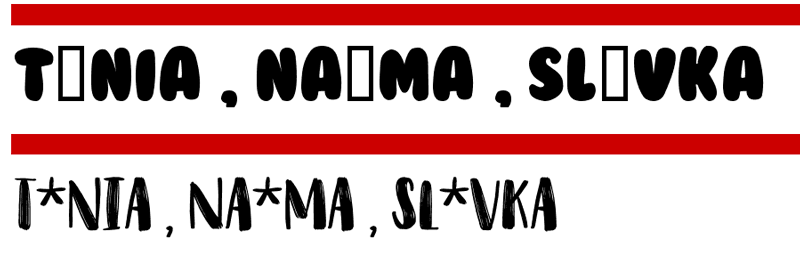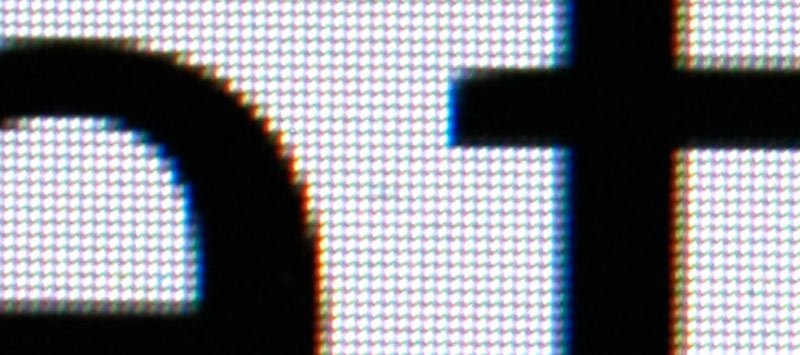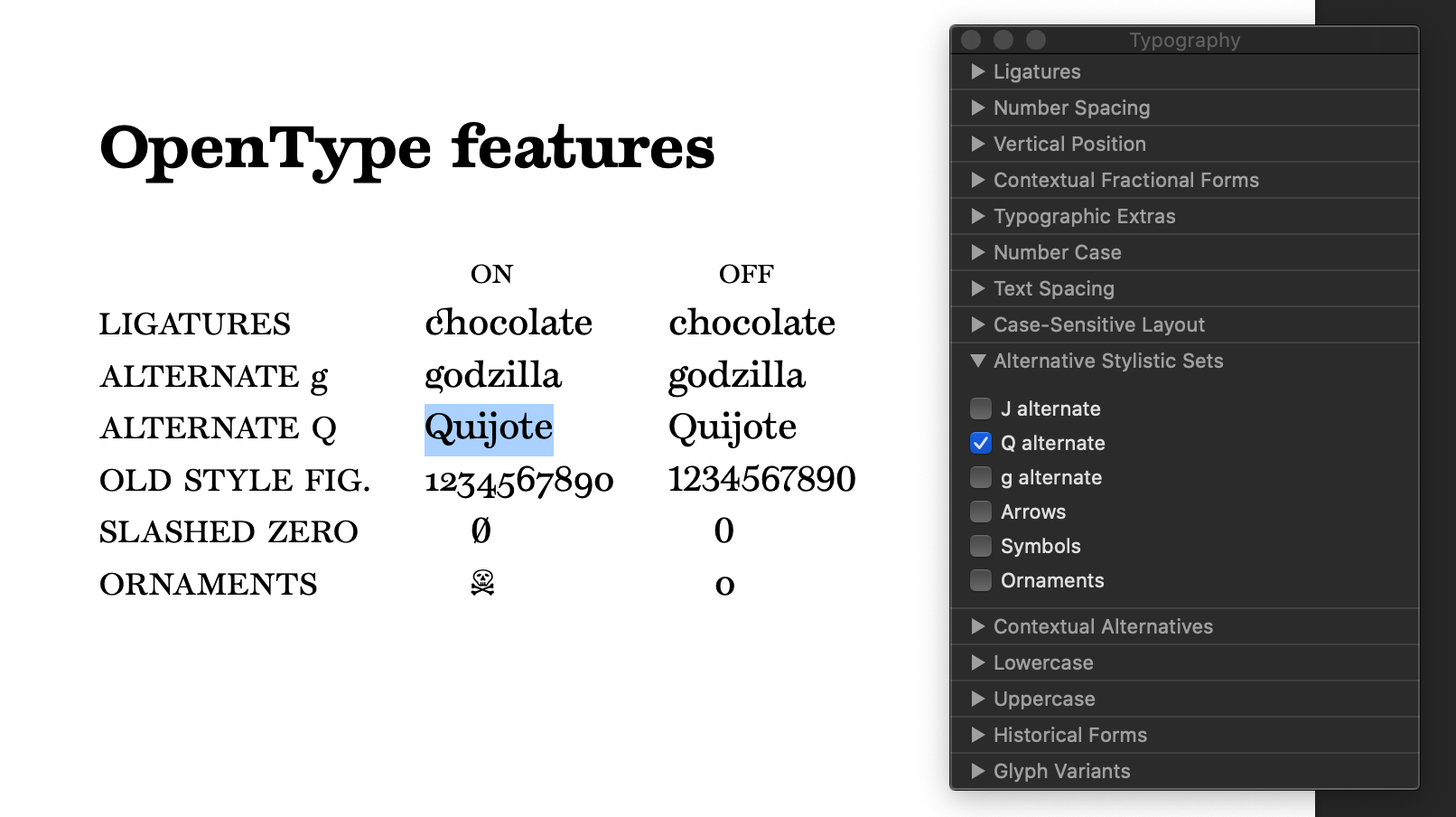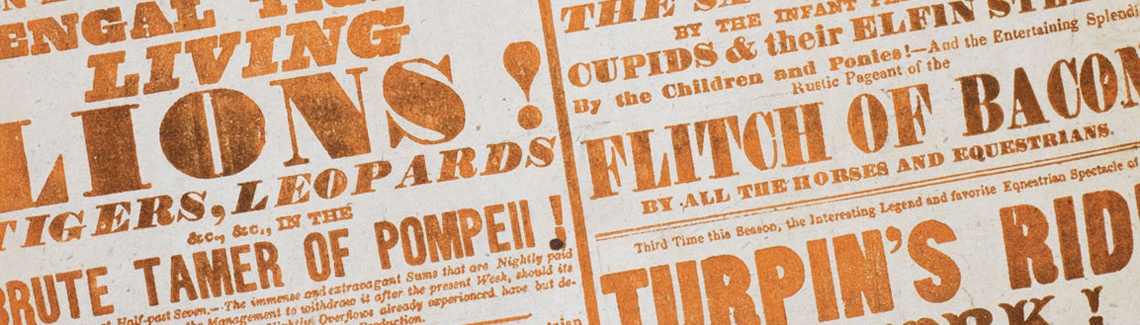
How to choose the right typeface
Typeface selection is an art and a science because it involves creativity and problem solving. Veronika Burian and José Scaglione offer ten tips on selecting typefaces.
To a great extent, graphic design involves written language, regardless of the designer’s field of specialization or personal abilities. You may have heard the saying, “95% of the Web is text.” The designer’s task is to transform information into effective pieces of communication. In most cases, writing is used as one of the main means to transport information to the reader’s mind, and in contemporary design this is mostly done with typography.
This article will simplify the complicated task of selecting fonts, help you stretch beyond your typographic comfort zone, and abandon recipes that tend to create repetitive, inefficient, and boring work.
1. Nine points small or nine feet tall?
The first point to be considered is the relationship between the structure of letters and content. Is it a long article printed at 9 points, or is it a very short title printed at 96 points?
As a rule of thumb, fonts with large counters, open terminals, and distinctive shapes tend to perform better in body copy sizes since they increase legibility. A font with oldstyle figures and with capitals that are slightly shorter than ascenders is more conducive to achieving an even texture in a block of text. Bits and pieces should not visually jump off the page and disturb the flow of reading.
On the other hand, headlines require compressed shapes to allow many characters onto a single line. Very short ascenders and descenders are needed to avoid a flag-like appearance in multi-line titles.
Consider fully the needs of the typeface — where and how it will be used — because those answers will dictate what forms the characters must have.
In the headings above, Protipo Compact and Abril titling Condensed are two examples of type families with short descenders and condensed forms to give headlines a solid look (more or less). But Athelas and Noort are designed for reading long paragraphs: open counters, low contrast, strong terminals, etc. Even though both are designed specifically for a similar context, they offer a very different outcome: different texture, different gray value, different use of space.
2. How many fonts?
Designers should also consider the number of fonts necessary to follow the logic behind the desired layout. Having just a few typefaces is always better than using too many.
A single typeface with italics and small caps will suffice for plenty of projects. However, as the design piece grows in size and complexity, an appropriate typographic response is indispensable.
Magazines and newspapers require a wide range of fonts (and even entirely different font families) in order to correctly present various sections, technical information, pull-quotes, navigation elements, footnotes, and much more.
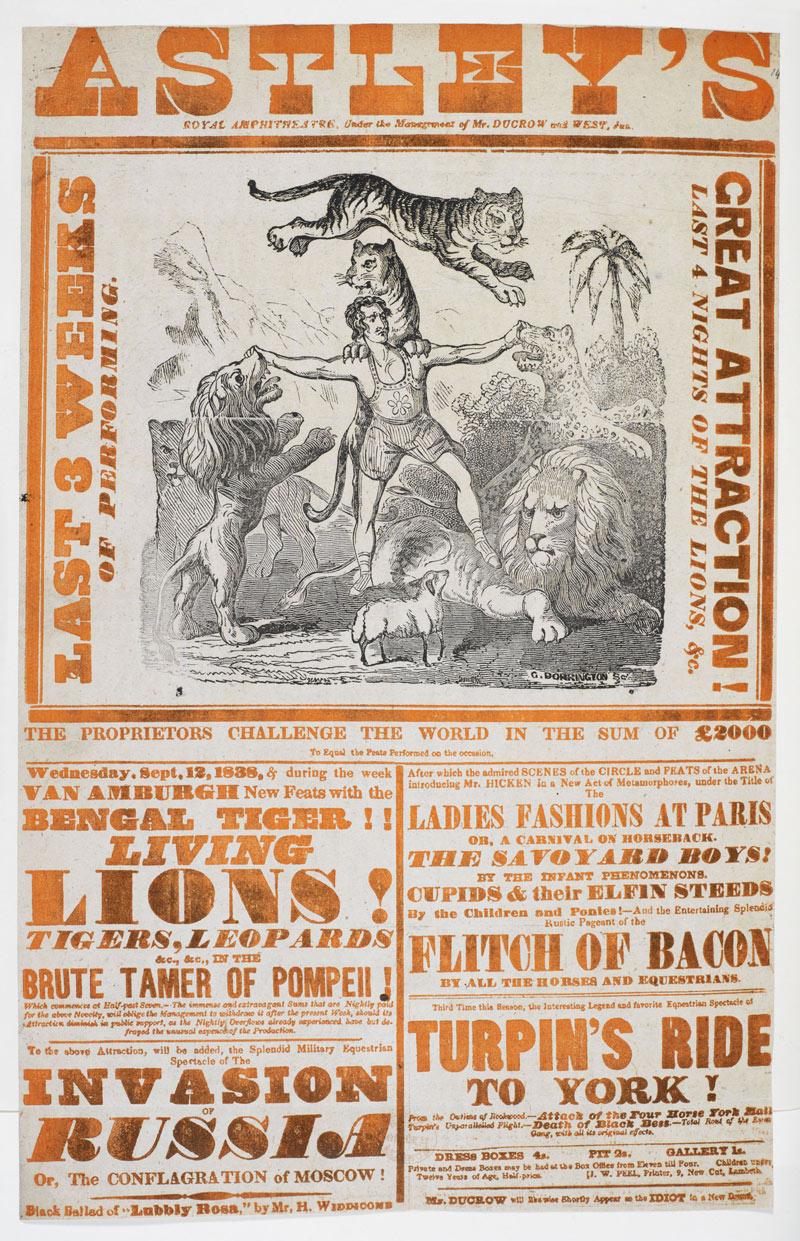
Unless you are setting a revival of a 19th century poster like the one above, using few typefaces is generally preferred. Image: courtesy of British Library, Public domain, poster of Astley’s Amphiteather, 1838.
3. For reading or for researching?
Another important factor is the way readers relate to the application. In the case of a novel, the reader starts on page one and reads steadily toward the end of the book. In a reference book such as a dictionary, the reader navigates the book swiftly, skipping unnecessary data until they find the one very short entry they were looking for. It should be no surprise that each scenario calls for a very different typographic choice.
In the first case, the user interacts with the text for an extended period of time, making reader’s fatigue the main problem. A serif typeface that has enough air overall (i.e., white space), has good typographic colour, and preferably low contrast would be appropriate here.
In reference books, however, reader’s fatigue is not a concern because the user is not exposed to the text for a prolonged period of time. Reference books instead usually require special characters (such as the International Phonetic Alphabet), a large amount of styles as an aid to navigation and structural guides, and compressed shapes to save printing space.
Typographic dissection of a dictionary entry to show the complexity of this kind of publication, usually requiring the use of multiple variants (italics, bold, small caps, ornaments), each of them adding a new layer of knowledge and content. Image from Nicolien van de Keur’s study on microtypography for dictionaries for her dissertation at the Master in Typeface Design.
4. Can it set Molière, façade, Beyoncé, and Čapek correctly?
Selecting a font family with correctly designed diacritic marks is the most neglected issue — and probably the most important — when selecting fonts. In other words, does the font contain all the required glyphs to produce the work?
Beware of blindly using any of the many font lists out there. Some are better than others, but even the ones that are correctly compiled may not be a good match for a particular design problem since all design problems are unique.
A font selection process that is fully aware of the complexities that go beyond decorative issues can only help to achieve better design, and it will hopefully guide graphic designers through a journey of type discovery. Selecting the right typefaces does make a difference — it sets the tone for everything to come.